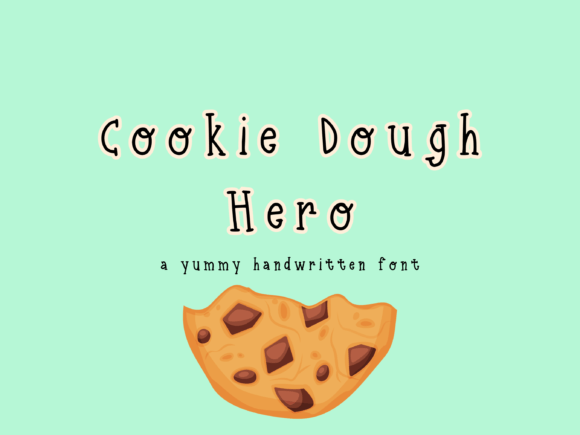
Introducing Cookie Dough Hero Font: The Perfect Blend of Fun and Sophistication
Are you tired of using the same old fonts in your designs? Look no further! We’re excited to introduce Cookie Dough Hero, a delightful serif font that’s sure to elevate the charm and approachability of your creative projects. With its casual and fun vibe, this typeface is perfect for designers, crafters, and anyone looking to add a touch of friendliness to their work.
The Inspiration Behind Cookie Dough Hero
Cookie Dough Hero was crafted with the intention of creating a font that’s both playful and polished. We wanted to design a typeface that would effortlessly blend a fun, carefree aesthetic with a clean and sophisticated appearance. The result is a font that’s perfect for a wide range of creative endeavors, from notetaking and journaling to designing children’s books and crafting.
What Makes Cookie Dough Hero Special?
So, what sets Cookie Dough Hero apart from other fonts? Here are just a few features that make it a standout:
• Fun and playful vibe: Cookie Dough Hero has a lighthearted, carefree feel that’s perfect for designs that need a touch of whimsy.
• Clean and polished appearance: Despite its playful nature, Cookie Dough Hero has a refined, sophisticated look that’s suitable for a wide range of applications.
• Suitable for a wide range of projects: Whether you’re working on a children’s book, a craft project, or simply want to add some personality to your notes, Cookie Dough Hero is the perfect choice.
• Easy to read: With its clear, serif design, Cookie Dough Hero is easy to read and understand, making it perfect for body text and headings.
Using Cookie Dough Hero in Your Designs
Cookie Dough Hero is an incredibly versatile font that can be used in a wide range of creative projects. Here are just a few ideas to get you started:
• Children’s books: Add a touch of whimsy and fun to your children’s book designs with Cookie Dough Hero.
• Notetaking and journaling: Use Cookie Dough Hero to add some personality to your notes and journals.
• Crafting and DIY projects: Cookie Dough Hero is perfect for crafting and DIY projects, such as making signs, labels, and other decorative items.
• Digital designs: Use Cookie Dough Hero in your digital designs, such as social media graphics, blog posts, and website headers.
Tips for Getting the Most Out of Cookie Dough Hero
Here are a few tips for getting the most out of Cookie Dough Hero:
• Experiment with different sizes: Cookie Dough Hero looks great in a variety of sizes, from small body text to large headings.
• Pair with other fonts: Try pairing Cookie Dough Hero with other fonts to create a unique and interesting look.
• Use it consistently: Use Cookie Dough Hero consistently throughout your design to create a cohesive look.
In conclusion, Cookie Dough Hero is a delightful serif font that’s perfect for designers, crafters, and anyone looking to add a touch of friendliness to their creative projects. With its casual and fun vibe, clean and polished appearance, and versatility, Cookie Dough Hero is sure to become a favorite in your font collection. So why wait? Download Cookie Dough Hero today and start elevating the charm and approachability of your designs!